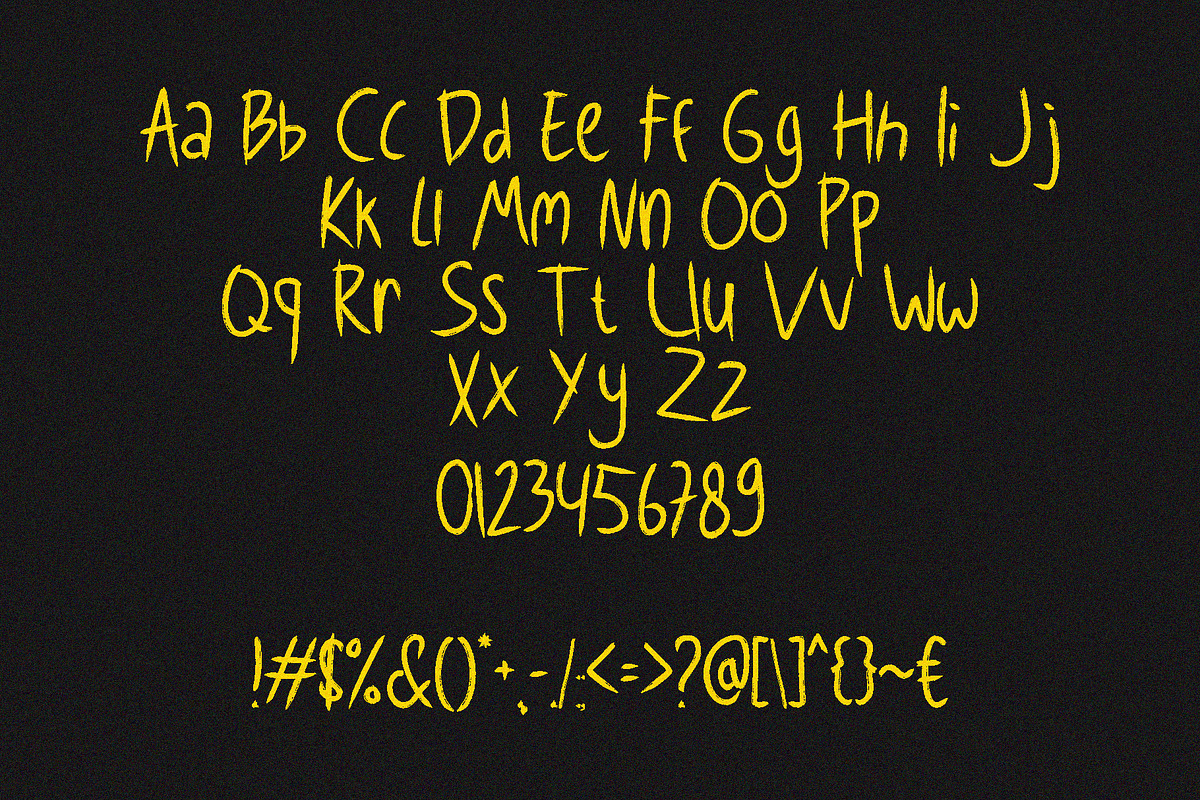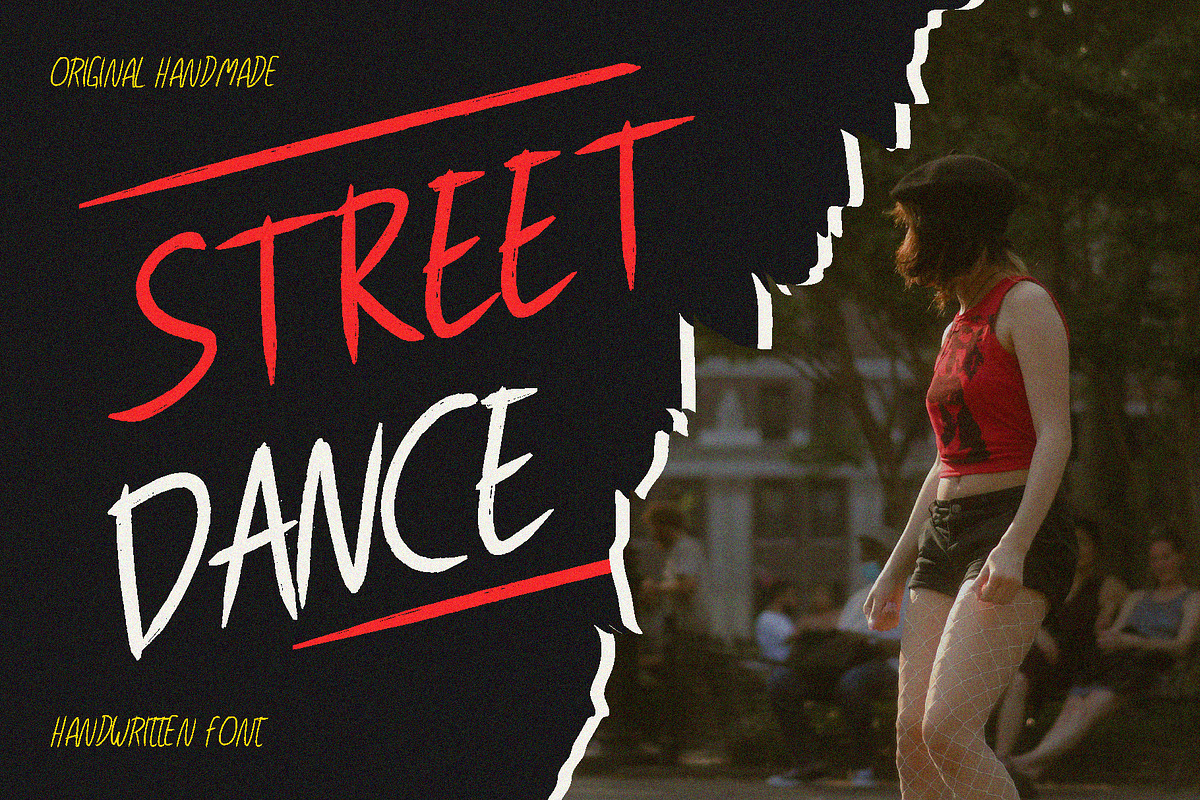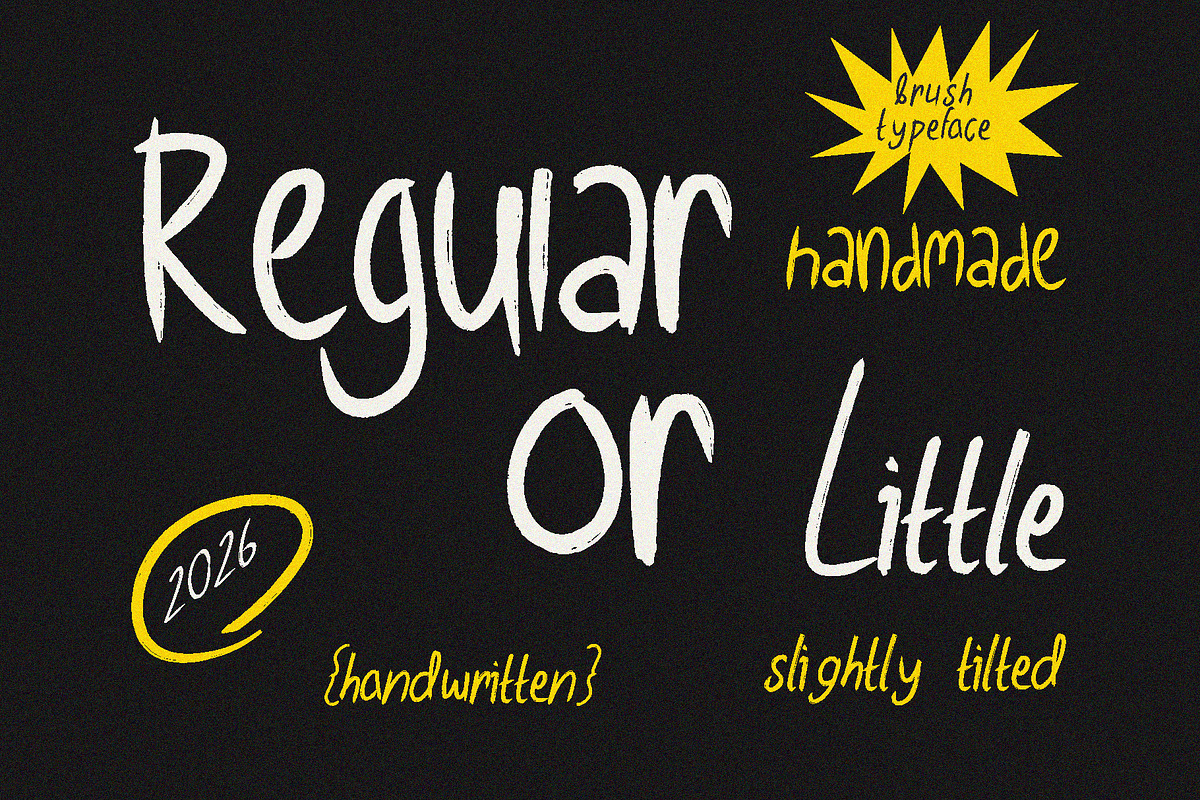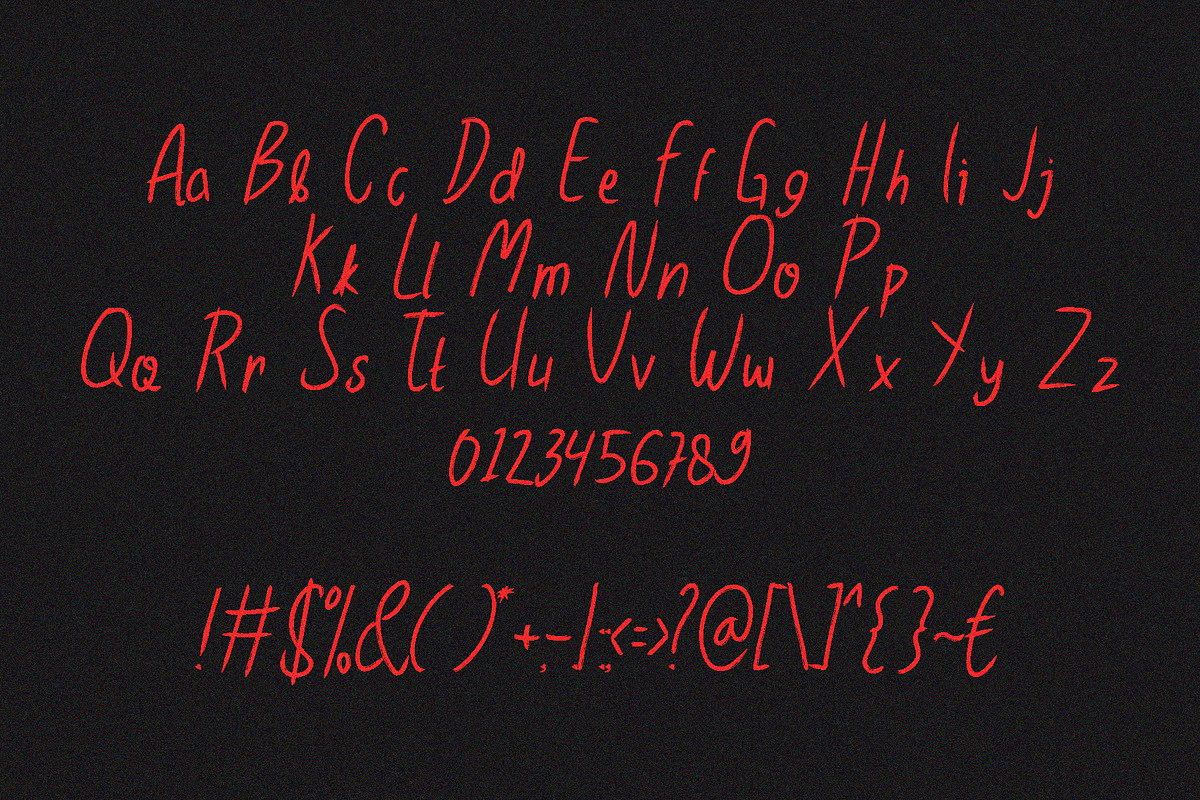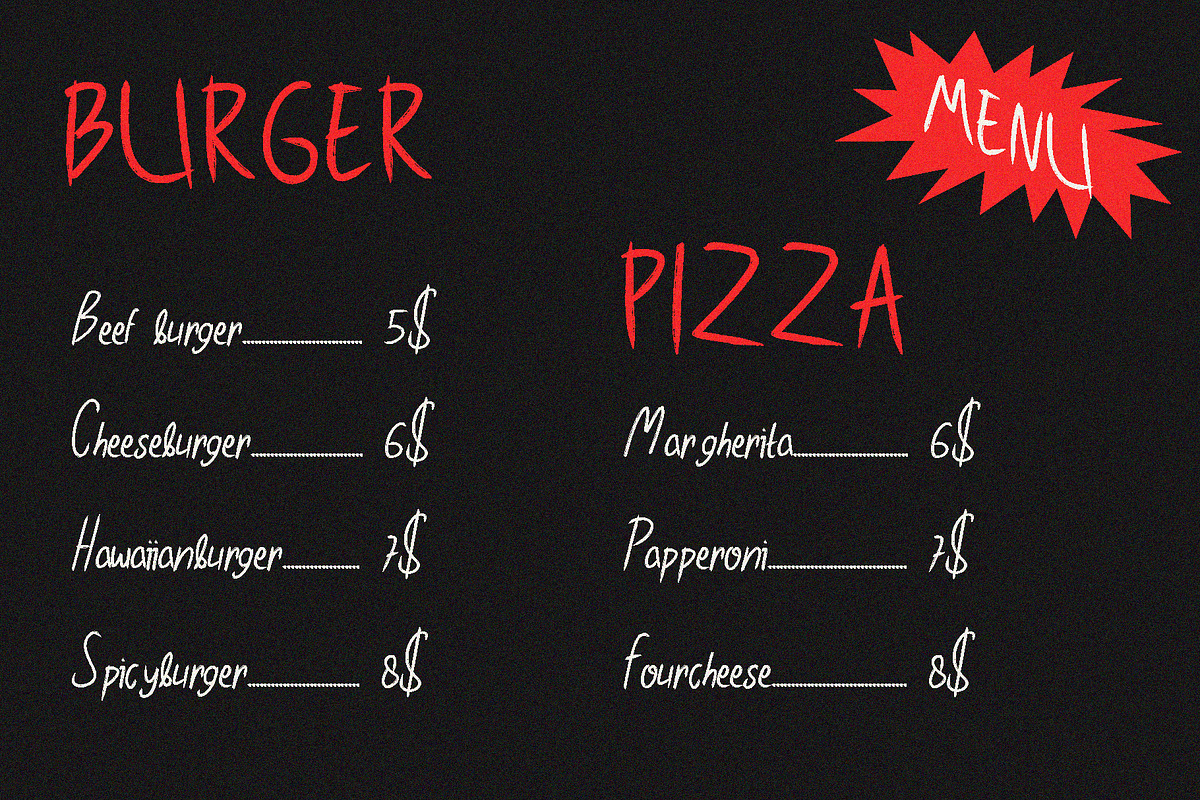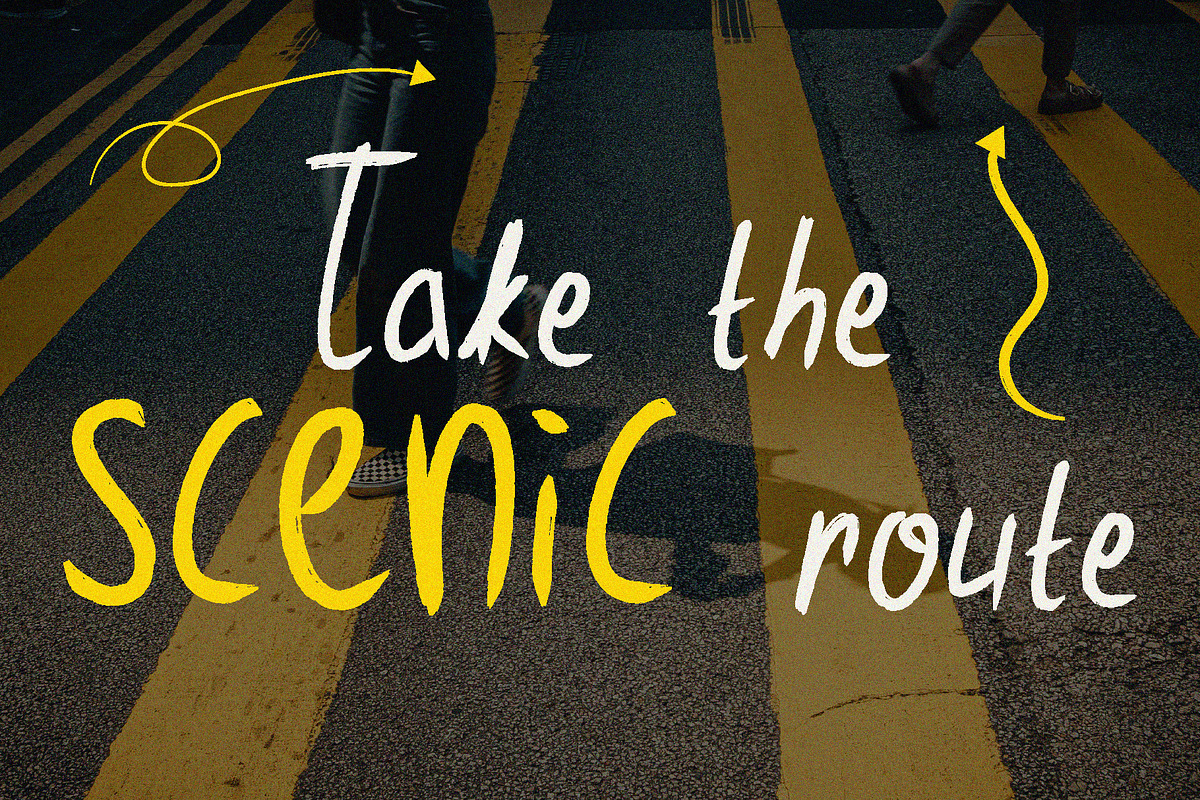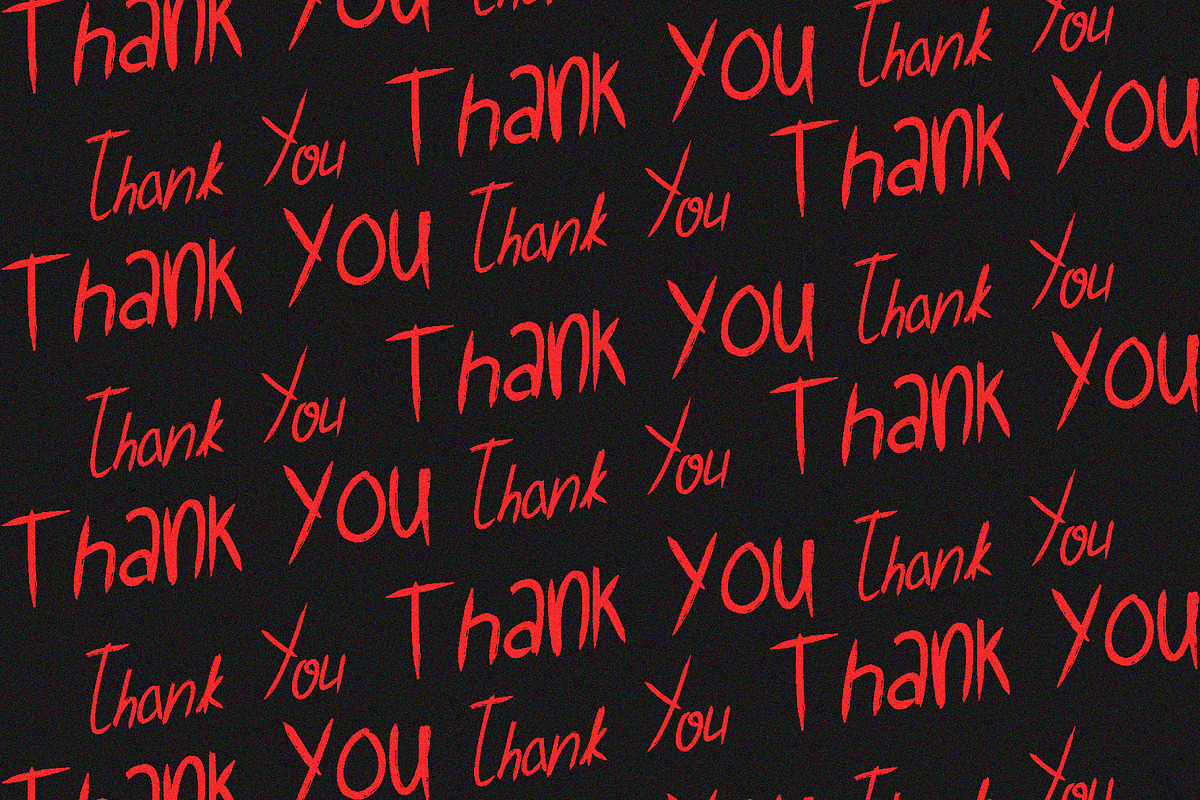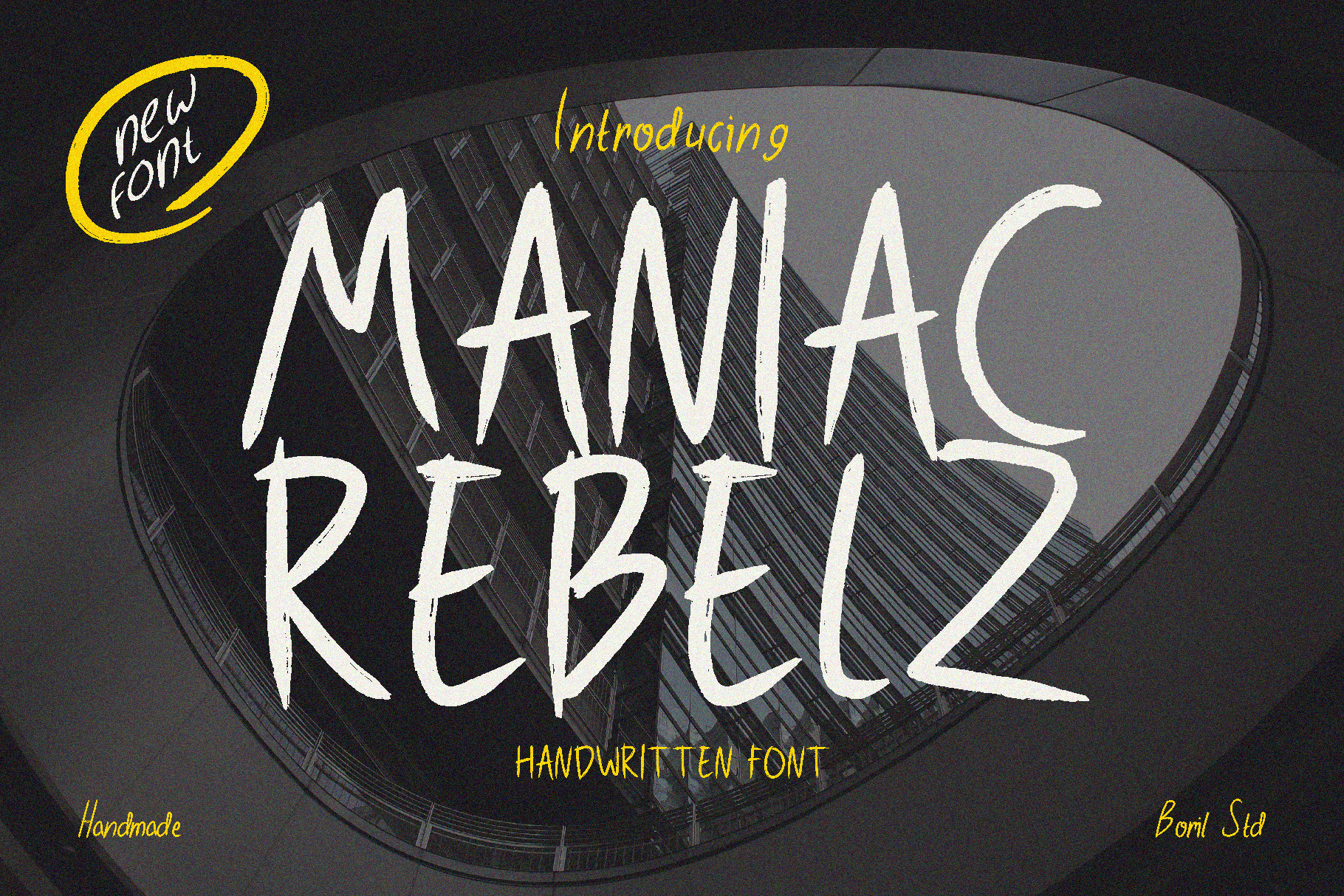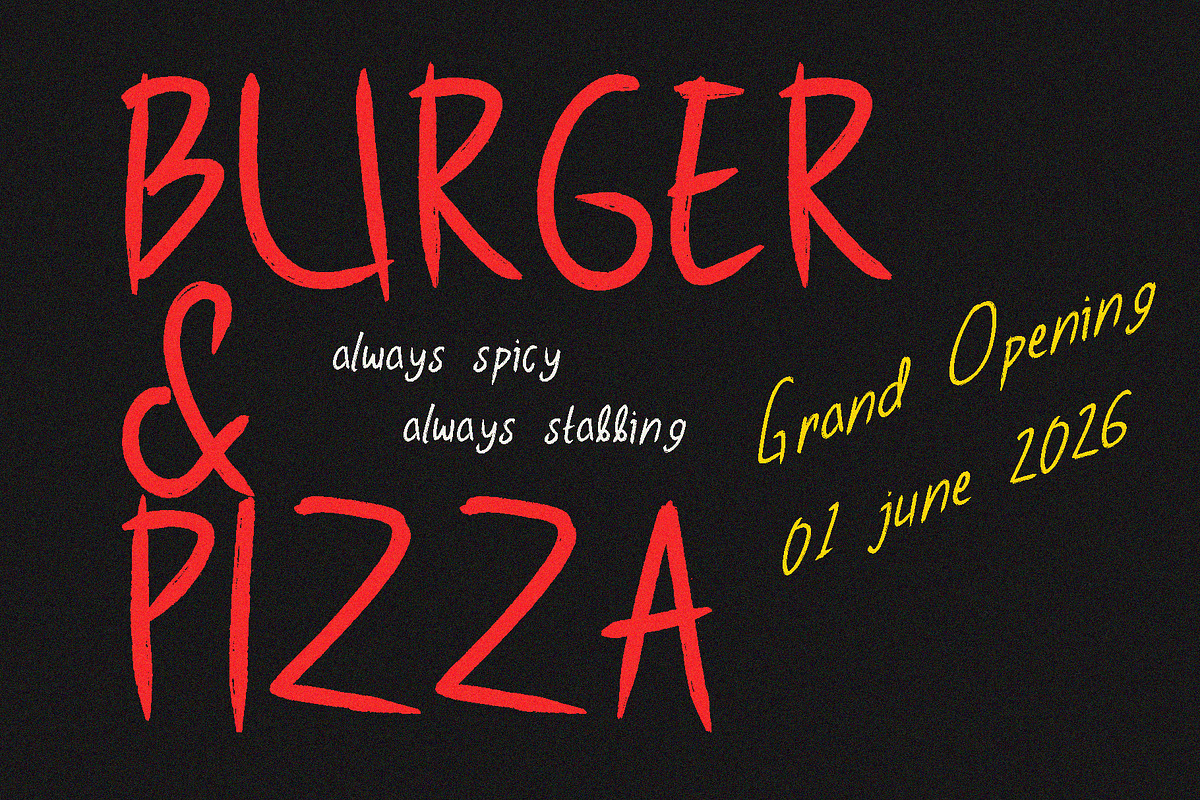
Maniac Rebelz - Handwritten Font
The Maniac Rebelez font has a casual handwritten style that resembles natural handwriting with thin strokes and less formal letterforms. The characters feel spontaneous, creative, and human, giving a warm and approachable impression.
Tall, slender, and slightly irregular letterforms create a handmade feel, while simple strokes maintain good legibility. The overall look exudes a cheerful, artistic, and authentic energy.
Visual Characteristics:
Handwritten
Casual
Playful
Expressive
Organic
Artistic
Friendly
Youthful
Authentic
Handmade
Impression:
Relaxed and relaxed
Creative and energetic
Friendly and personal
Modern yet natural
Fun and a little quirky
Suitable for a young and creative audience
Suitable Themes:
Retro Handmade
Indie Art
Boho Lifestyle
Creative Studio
Café and Food Truck
Music Festival
School Project
Urban Street Art
Journal & Scrapbook